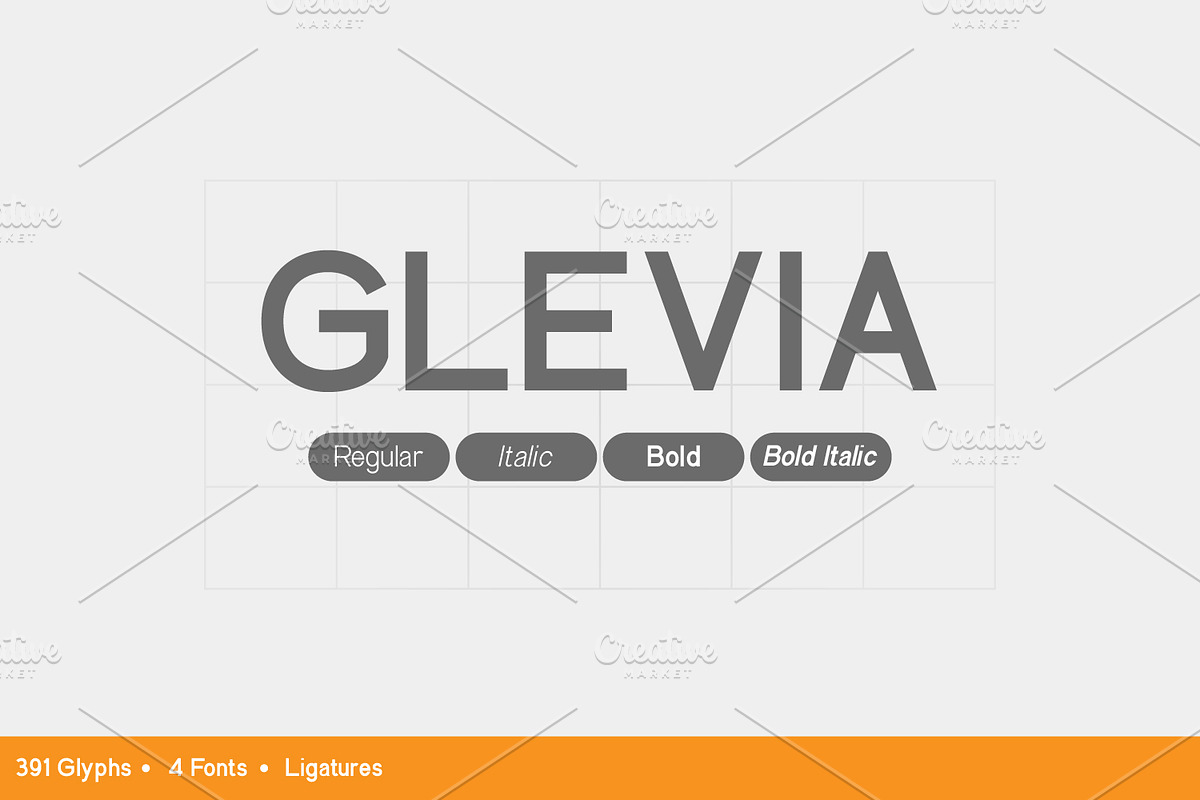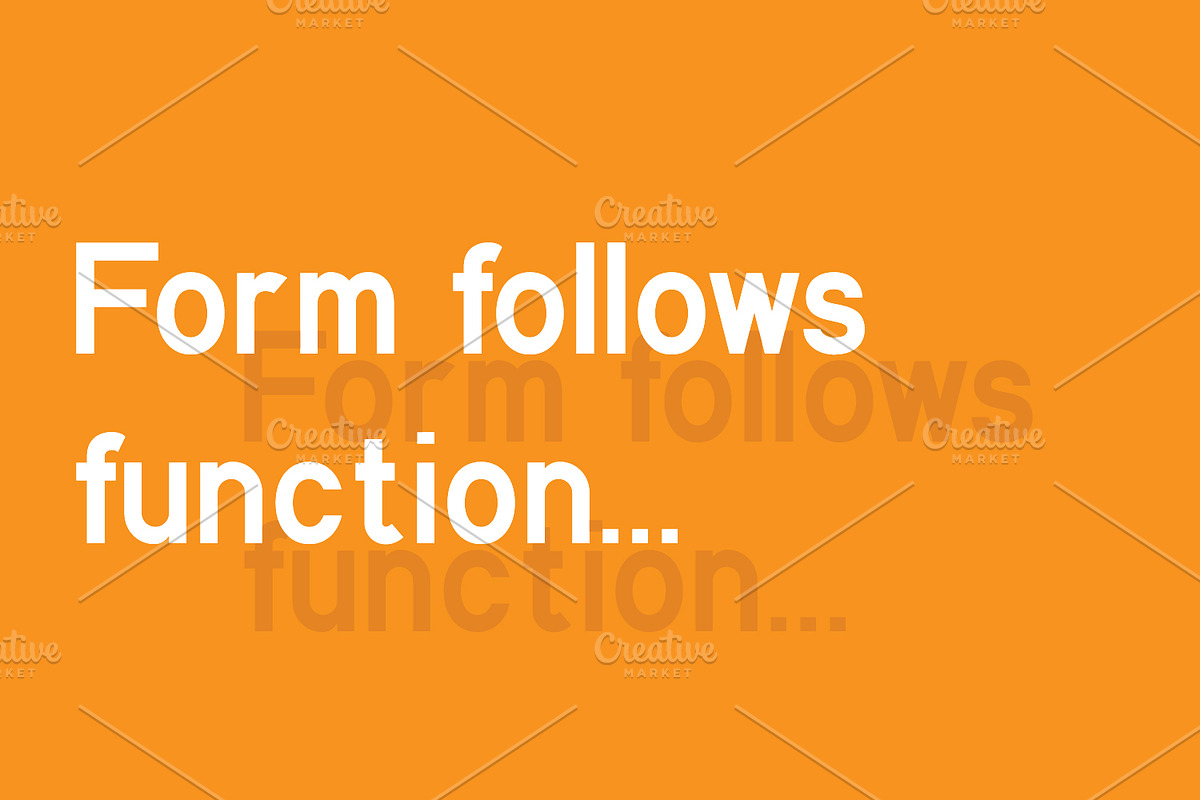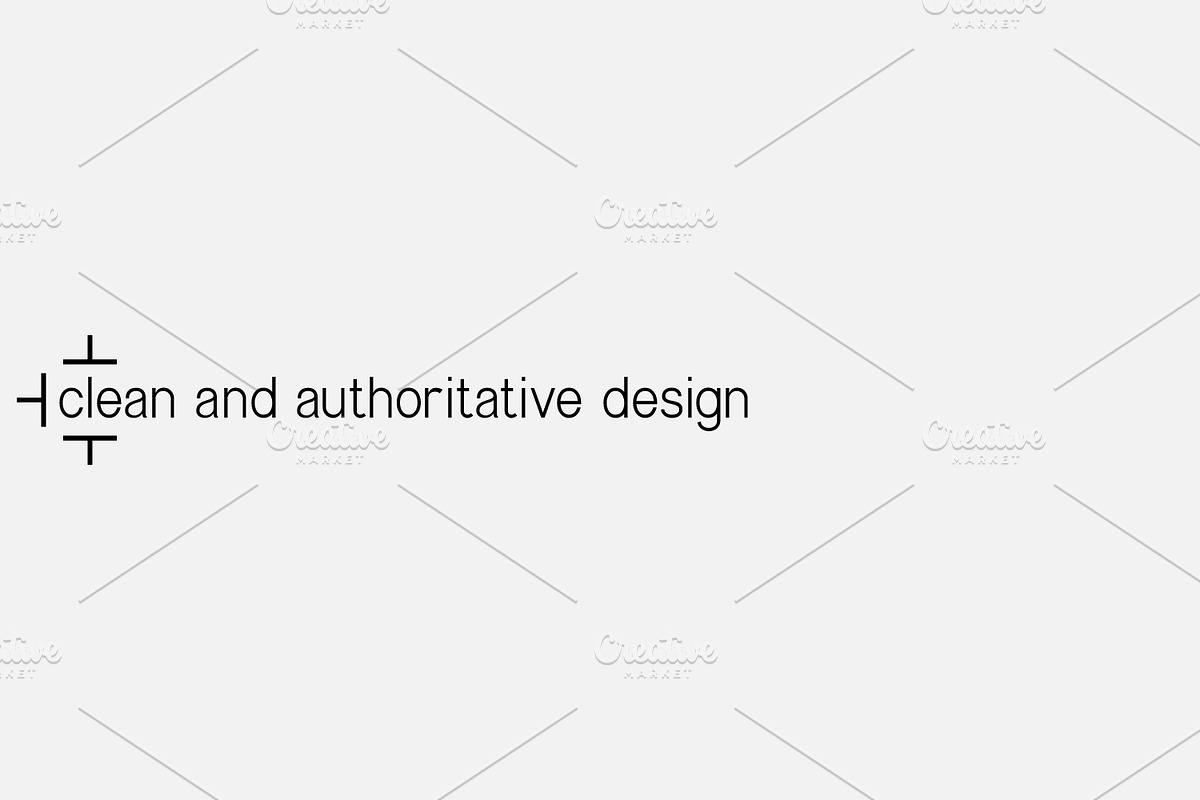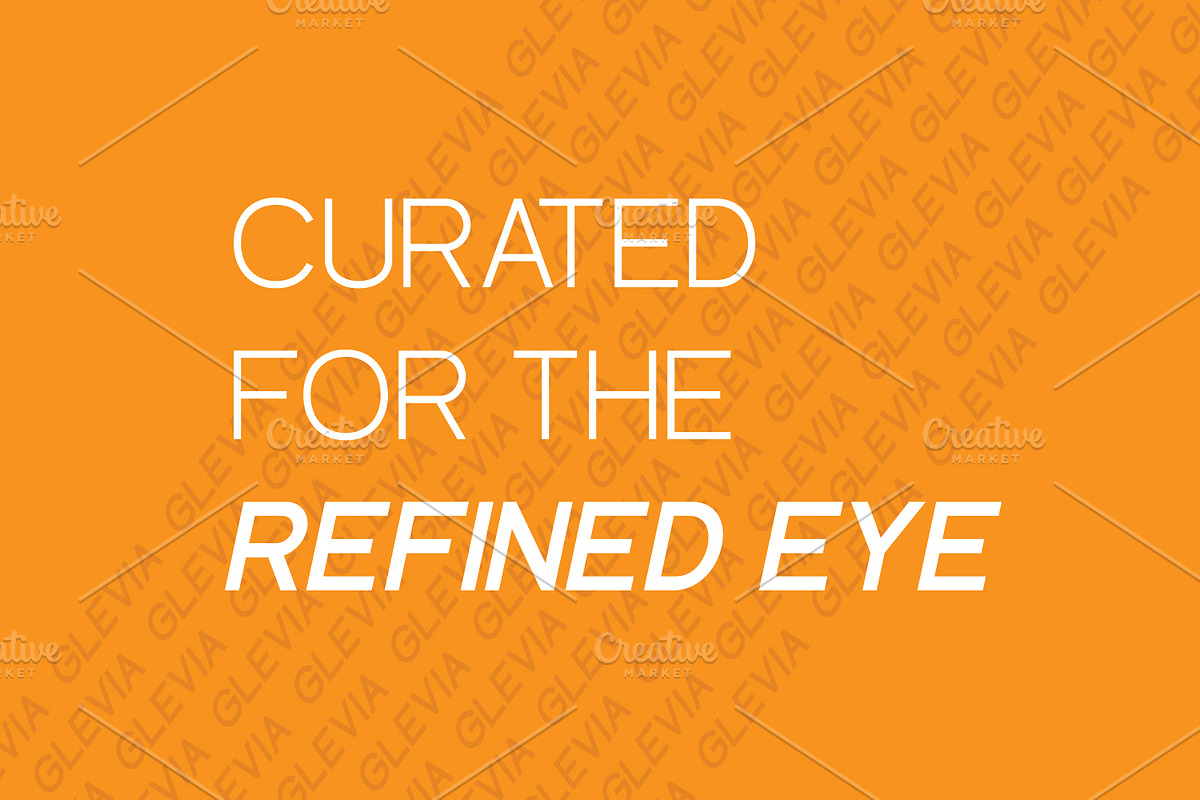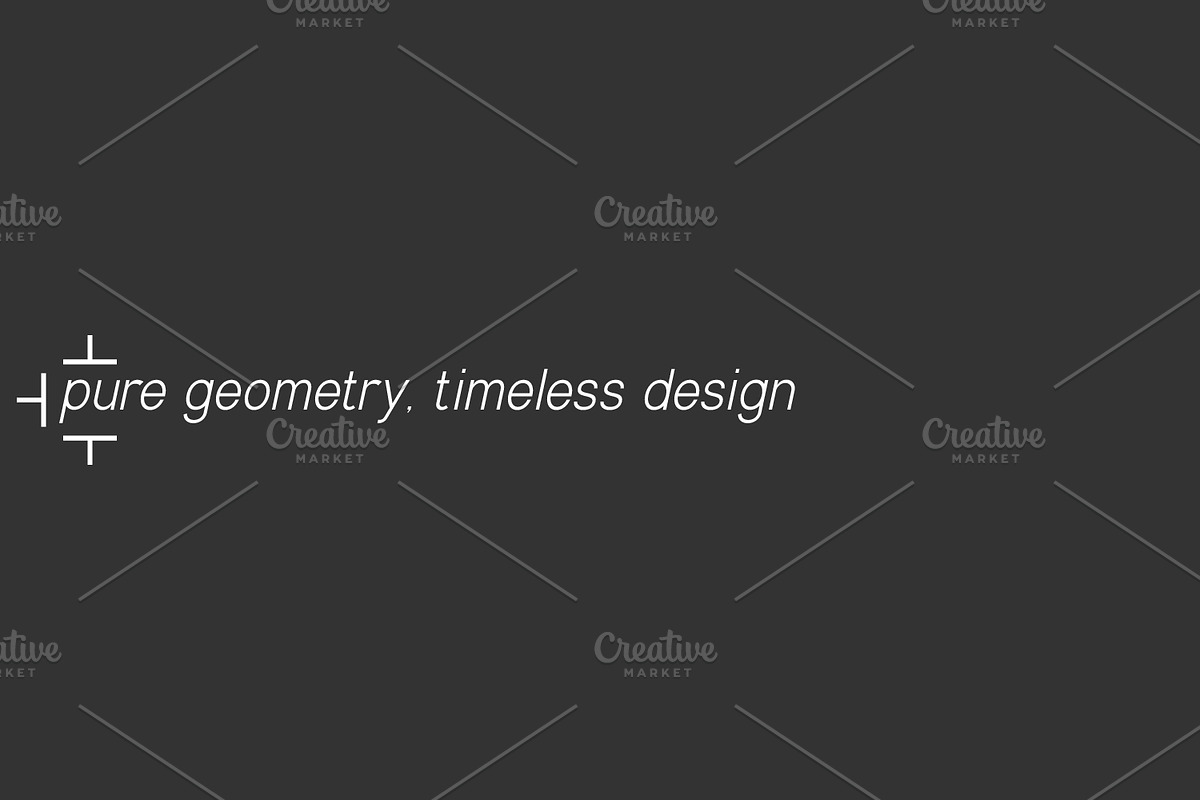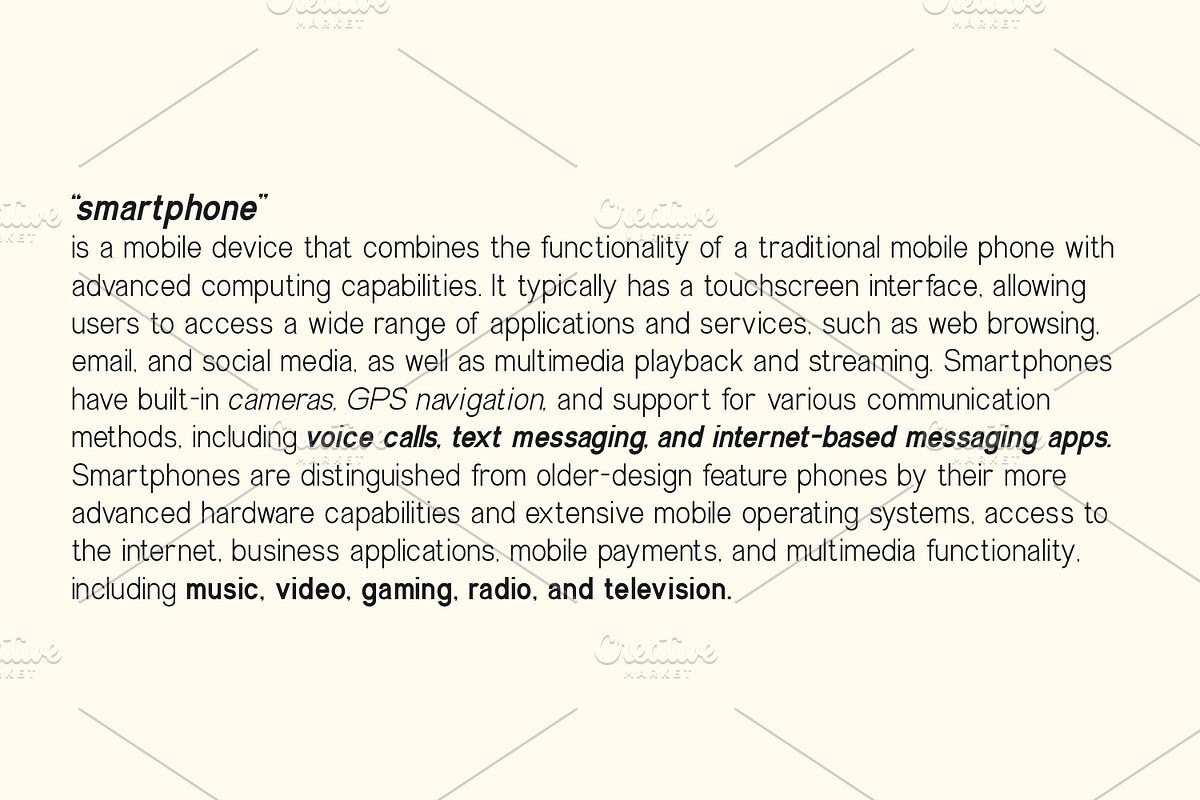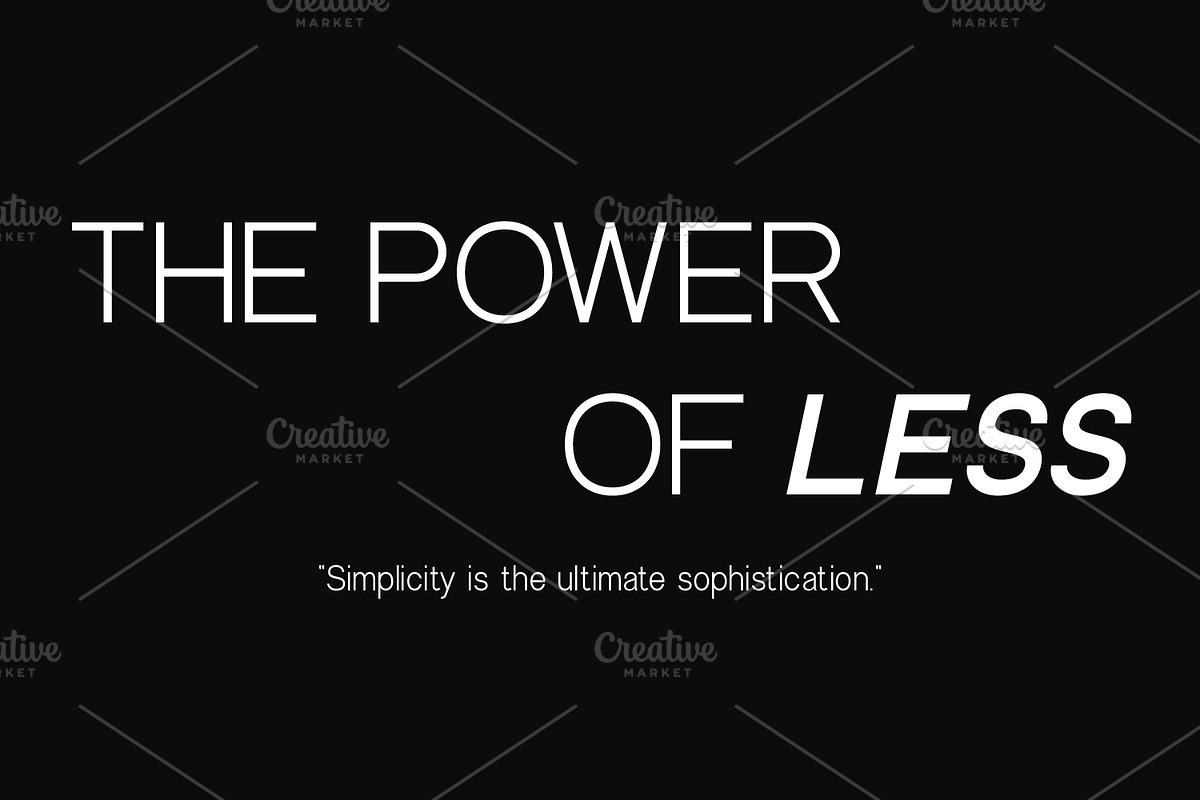
Glevia Sans
Elevate your designs with Glevia, a refined, modern sans-serif typeface designed for unparalleled clarity and versatility. Glevia refines these classic principles with clean lines and precise geometry, creating a look that is both efficient and inviting. Glevia’s exceptional legibility makes it perfect for long-form reading in digital interfaces and print. Its clean, authoritative presence makes it equally well-suited for brand identities, sophisticated publications, packaging, editorial design, and advertising. From clean minimalist websites to complex industrial reports, Glevia is ready to be applied anywhere, bringing a polished, professional touch to your creative projects. Glevia was born from a desire to create a contemporary interpretation of a functional design classic. By stripping away the unnecessary and leaving only the essential, Glevia offers a familiar yet fresh perspective, refined for the needs of the digital age.